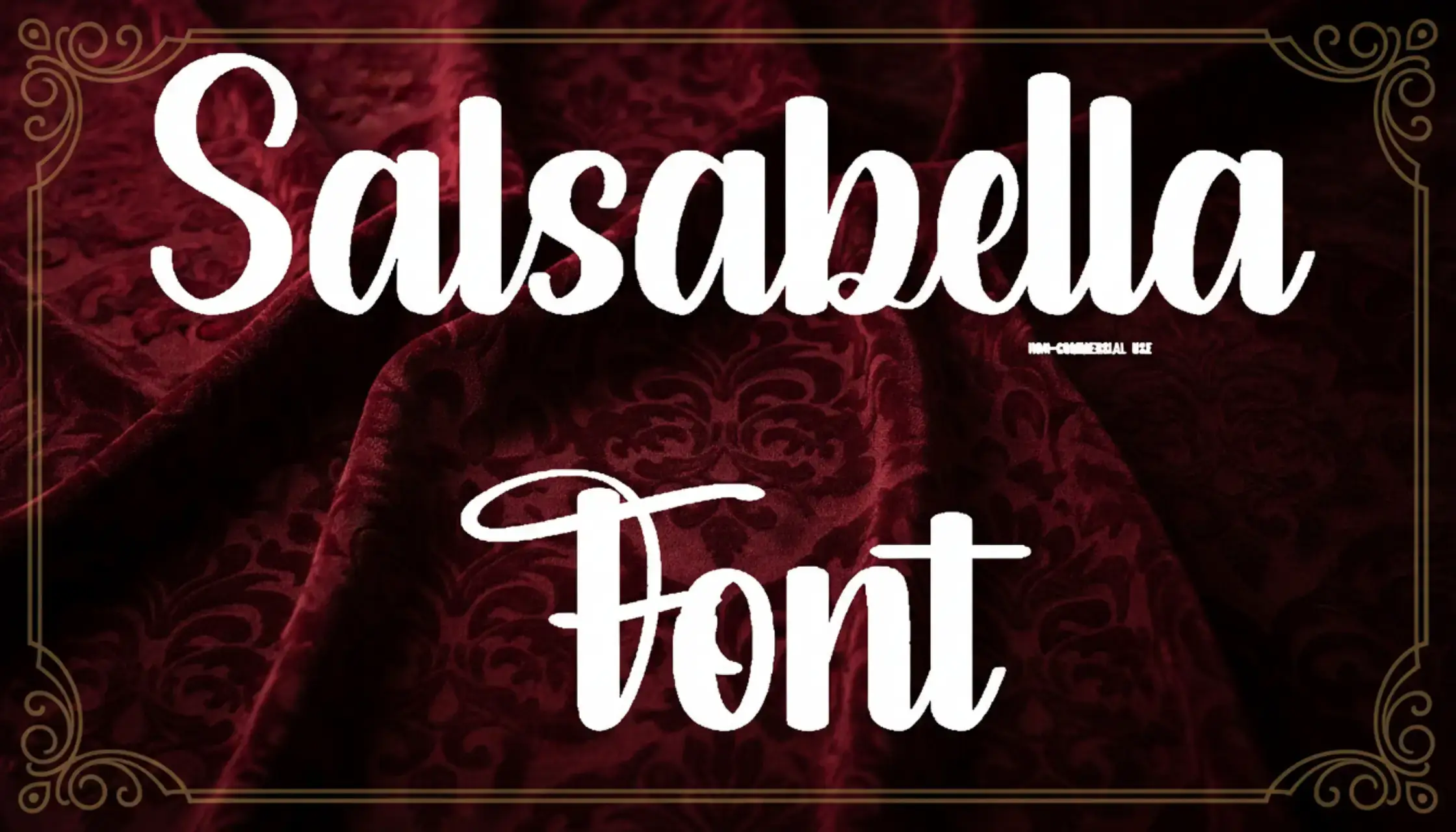
Salsabella Font
Salsabella is a script font created by Fuad Hasan. It has that hand-lettered, flowing feel people look for when regular type seems too stiff. It's a free download, and you can try it with your own text in the preview above first.
What You Can Type With Salsabella
You get every letter from A to Z in both cases and all the numbers from 0 to 9, which means Salsabella can handle full sentences, dates and prices. Everyday marks like &, !, ? and @ are there too. Thanks to its accented letters, it also works for Spanish, French, Portuguese and Italian, not just English.
Where Salsabella Works Best
Salsabella is a natural fit for wedding invitations, logos and signature-style headings. Script fonts read best in short bursts, so keep it to names, titles and one-line quotes. Skip all caps: script capitals are drawn to start a word, not to fill one.
Does Salsabella support accented letters?
Yes. Salsabella includes the accented letters needed for Spanish, French, Portuguese and Italian, so it works for more than just English.